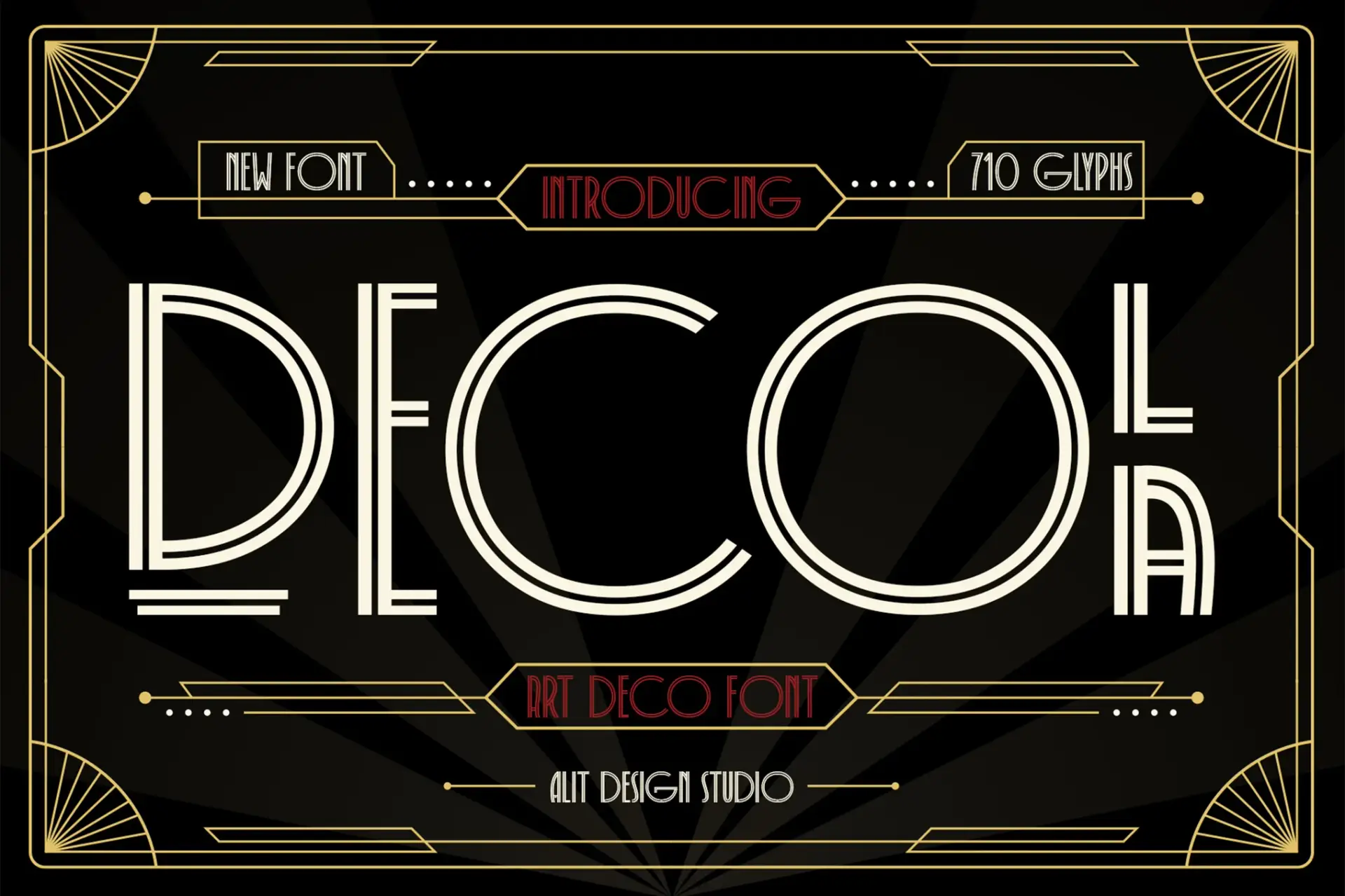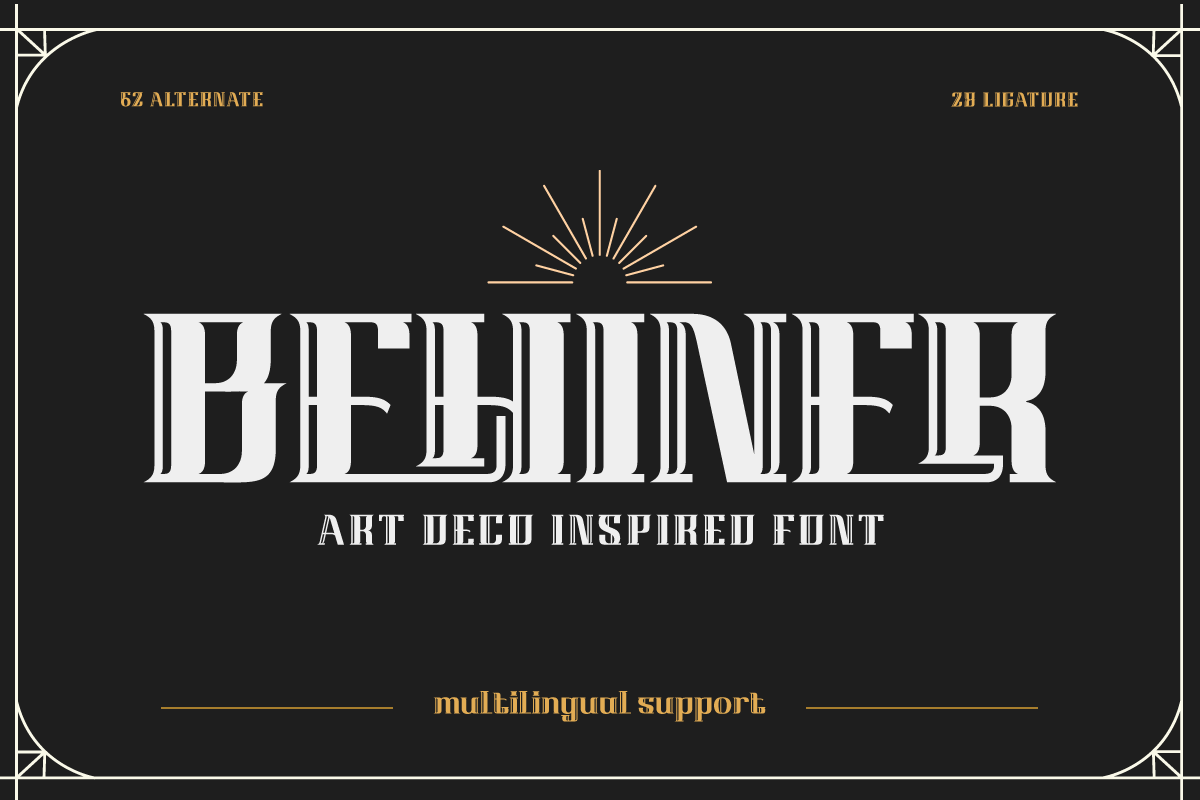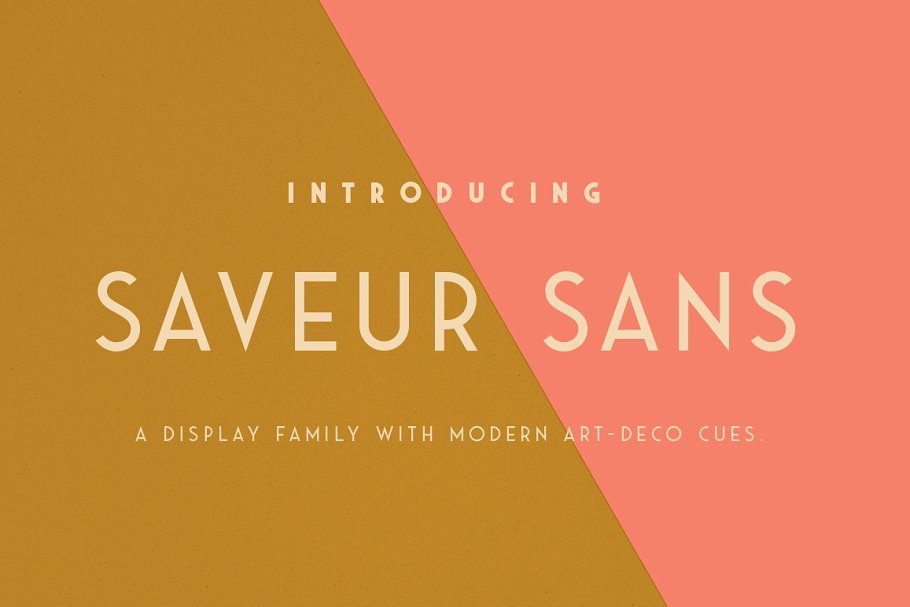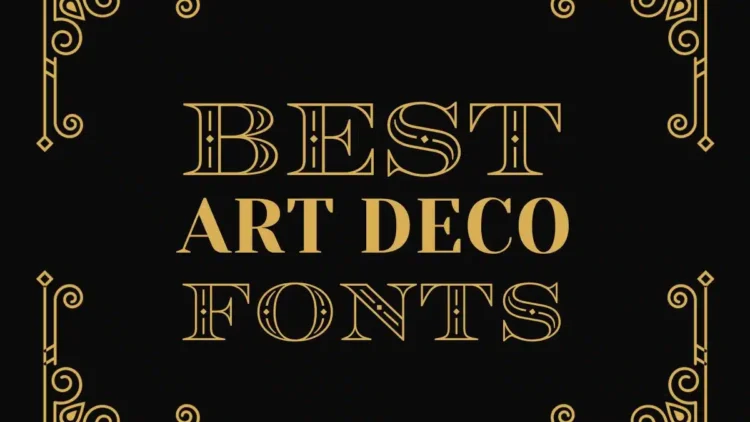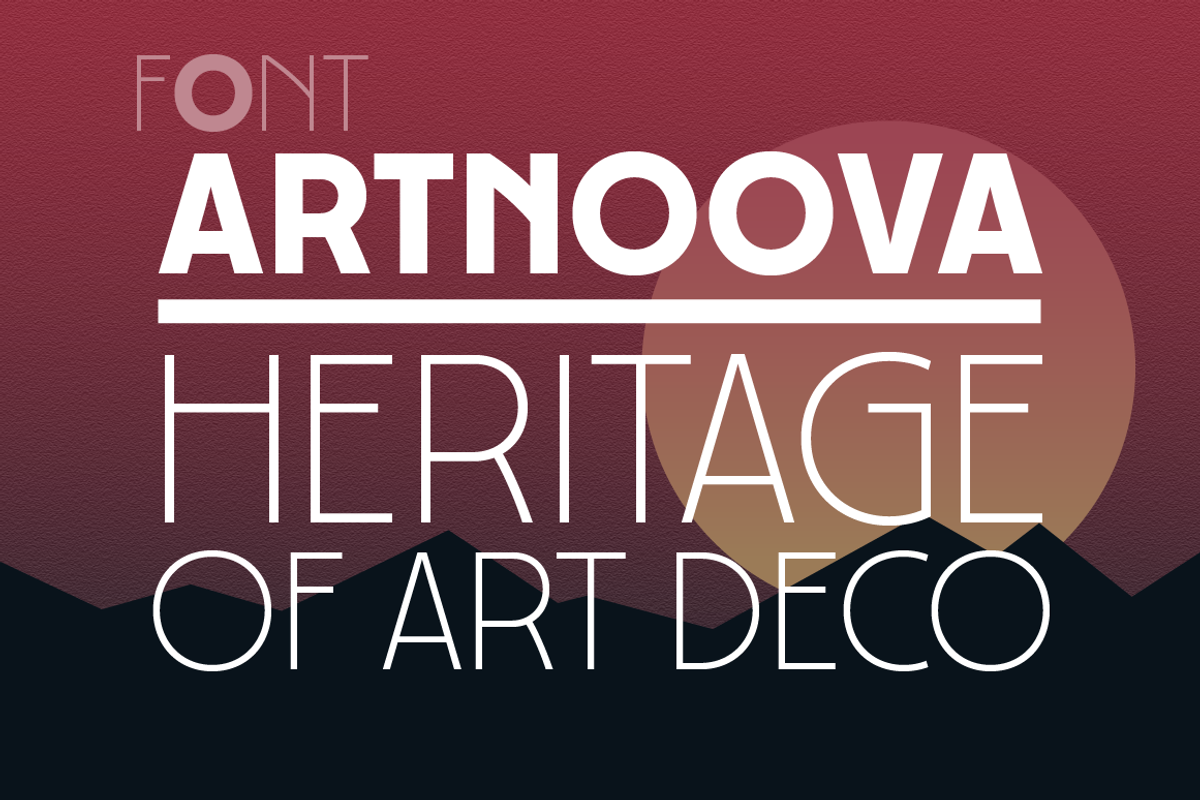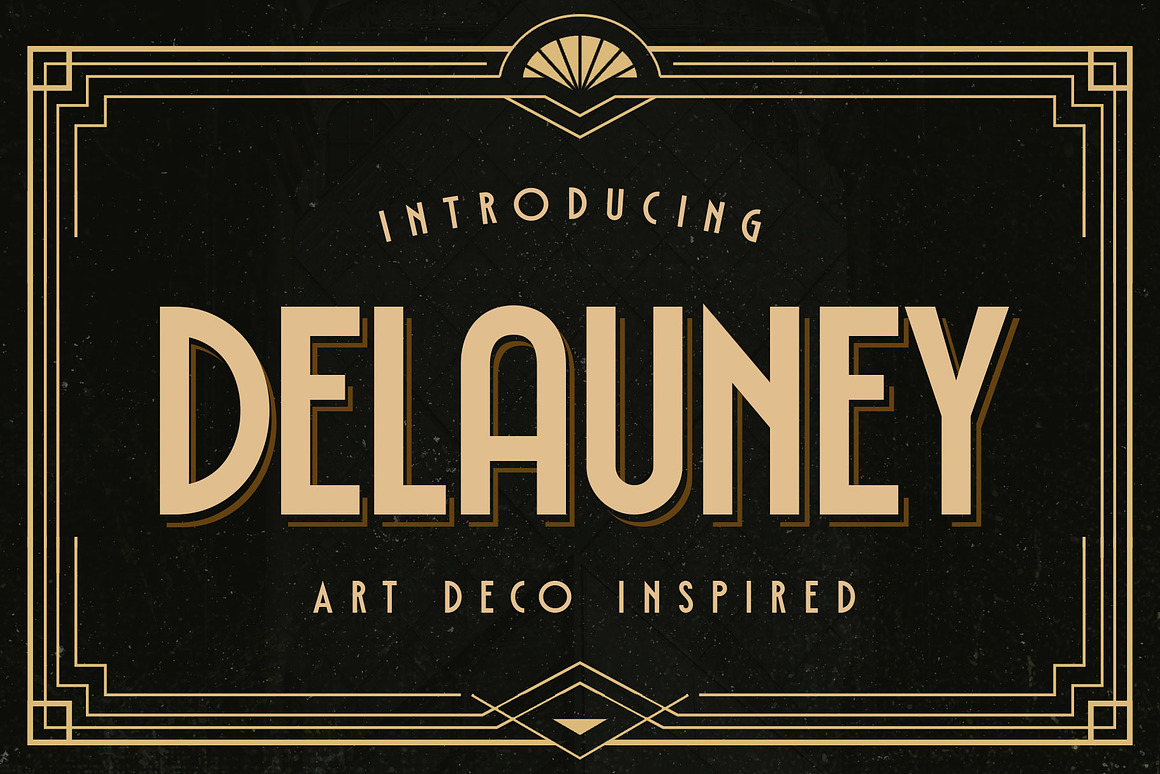
31+ Best Art Deco Fonts To Replicate The Look And Feel Of 1920s Design
Art Deco (Arts Décoratifs) is a popular design movement that came to prominence in the 1920s and 1930s. It is characterized by its use of geometric shapes, clean lines, and bold colours.
If you want to add a touch of Art Deco to your designs, you’ll need to use the correct fonts. In this article, I’ll share some of the best Art Deco fonts you can use in your projects.
Where can you use the Best Art Deco Fonts?
You can use art deco fonts for several projects where you want to add a touch of luxury or modernity. Here are some examples:
Websites :
If you’re designing a website for a high-end brand or a luxury product, you can use an Art Deco font to add a touch of class.
Print Design :
Art Deco fonts can also be used in print design projects, such as flyers, posters, and magazines.
Logos:
Art Deco fonts are perfect for luxury logos or any logo that needs a touch of elegance.
Business Cards:
If you want your business card to stand out, you can use an Art Deco font, which will help you create a modern and stylish card.
Product Packaging:
If you’re designing product packaging, an Art Deco font can help you create a sophisticated and luxurious look.
Now that you know where you can use Art Deco fonts let’s look at some of the best ones available.
To facilitate your journey in crafting stunning retro typography amidst the digital age, we’ve curated a selection of the finest 32 art deco fonts. These fonts are handpicked to infuse your designs with an unmistakable retro allure, ensuring your creations stand out. Explore our comprehensive collection of retro fonts and elevate your design game!
Why Opt for the Best Art Deco Fonts?
Choosing the best Art Deco fonts for your design endeavors is a decision backed by several compelling reasons.
First and foremost, these fonts possess an innate ability to captivate your audience with their bold and distinctive appearance. Their geometric shapes, elegant lines, and intricate details make them stand out, allowing your designs to make a powerful visual statement. Moreover, Art Deco fonts exude a sense of class and sophistication, enabling you to convey your style and creativity through your projects.
Furthermore, the versatility of Art Deco fonts is a significant advantage. Whether you’re aiming for a retro, Gatsby-inspired vibe or a modern twist on the Art Deco aesthetic, you’ll find a font that seamlessly aligns with your creative vision.
Thanks to their enduring popularity and widespread availability, you won’t have to search far and wide to find outstanding Art Deco fonts and design inspiration online. Selecting the perfect font for your project has never been easier.
So, if you’re on the hunt for a font that exudes timeless elegance and artistic flair, the world of Art Deco fonts is your playground. Prepare to embark on a design journey that promises to leave a lasting impression.
Let’s explore.
1. Delauney – Art Deco Font
Delauney – Art Deco Font is a typeface that combines the best of both worlds – it’s inspired by the classic Art Deco era, but with a modern twist.
The Delauney font was created by Palembang, Indonesia, and it’s perfect for adding a touch of luxury to any project. Delauney is available in both regular and bold weights, and it comes with a handy set of OpenType features.
So if you’re looking for a font that will give your designs a touch of elegance, Delauney is a perfect choice!
2. Phantom – Art Deco Display Typeface
Phantom – Art Deco Display Typeface is a typeface that was created in the art deco style. The typeface is characterized by its sharp, angular shapes and its use of thin, straight lines.
Phantom – Art Deco Display Typeface is often used for decorative purposes, and it can add a touch of elegance to any design.